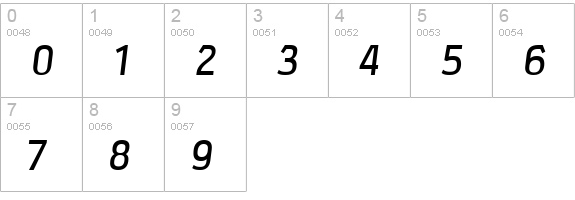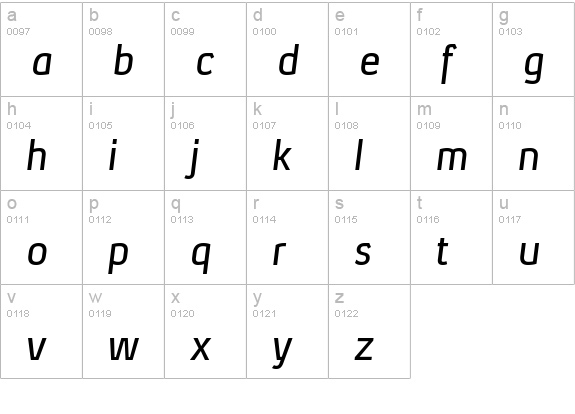
Xenu Semibold Italic is a sub-bold, structured, italic variant in the Xenu typeface family \xE2\x80\x94 well suited to sub-headlines and emphasised passages.
Xenu Semibold Italic font strikes the perfect balance between strength and elegance, making it a versatile choice for a wide range of design projects. Its bold strokes and slanted angles exude a sense of confidence and modernity, while the subtle curves add a touch of sophistication. This font is ideal for creating eye-catching headlines, posters, logos, and more. Whether you're looking to make a bold statement or add a touch of flair to your designs, Xenu Semibold Italic has got you covered. And the best part? Xenu Semibold Italic font is available for free download at FontsMarket.com. So go ahead and give your designs a stylish edge with this sleek and modern typeface.